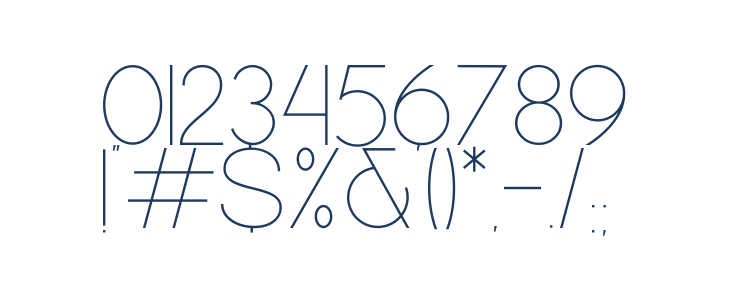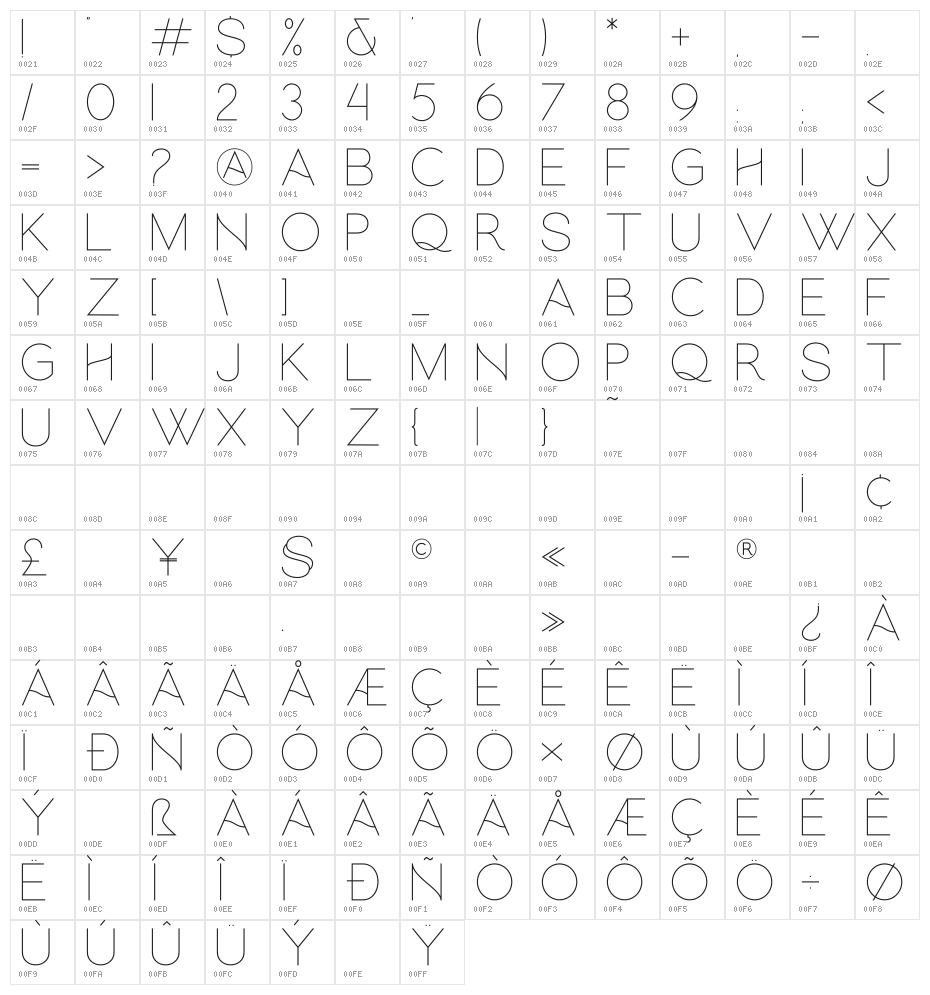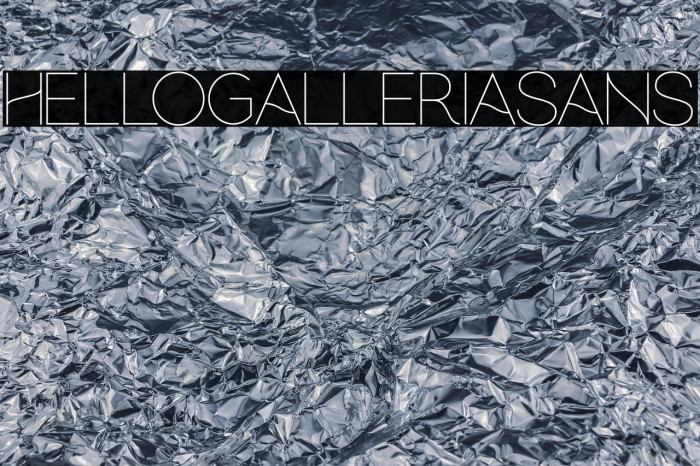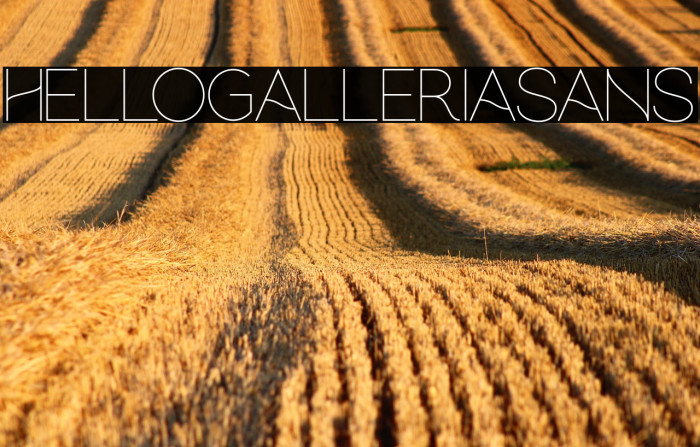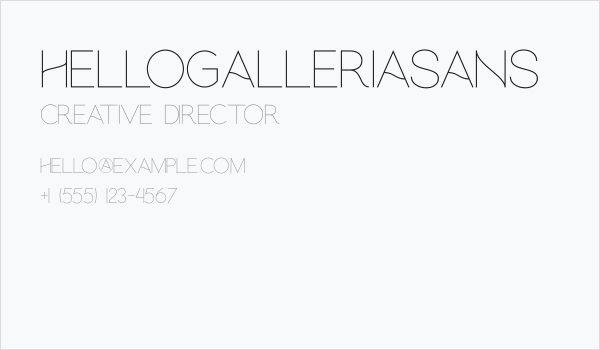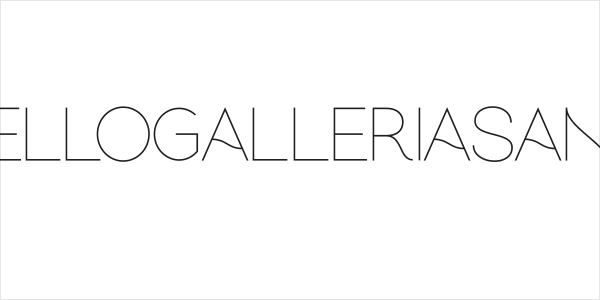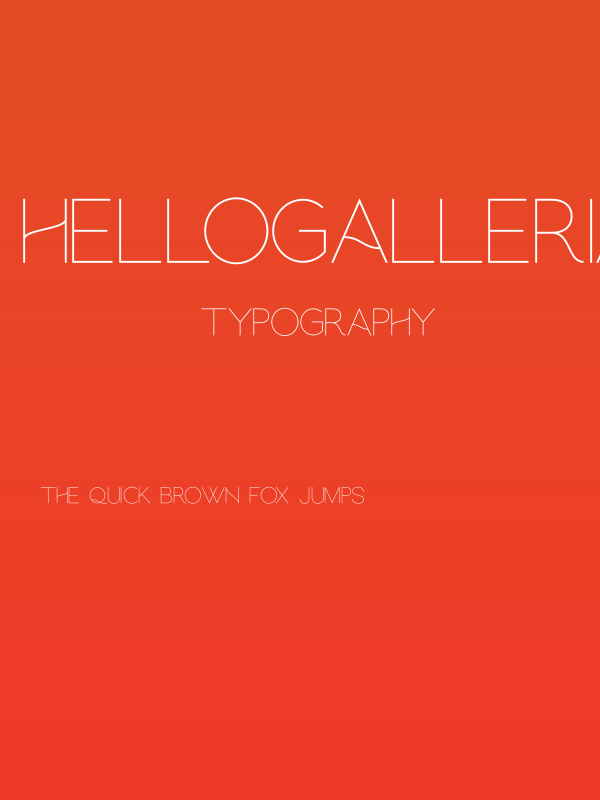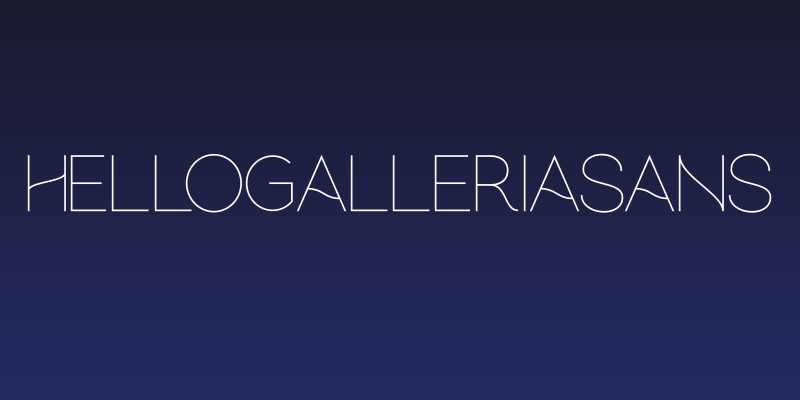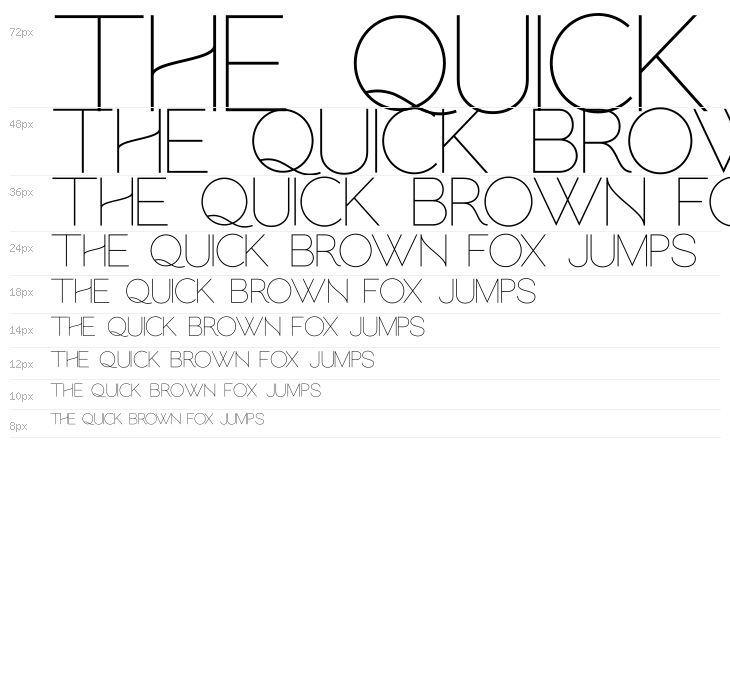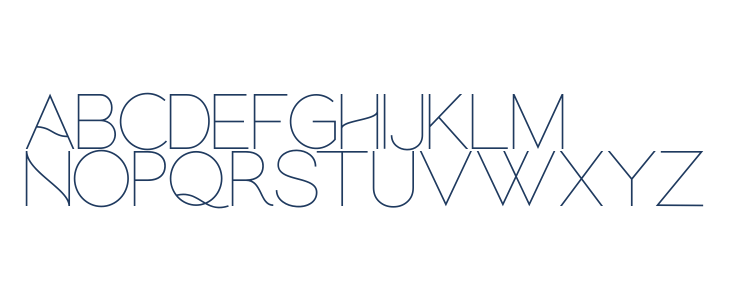
hellogalleriasans Font
hellogalleriasans Description
This font features a sleek and modern design with clean, geometric lines. The uppercase letters are tall and narrow, giving a sophisticated and elegant appearance. The lowercase letters maintain a consistent style, complementing the uppercase with their minimalist form. Numbers are clear and easy to read, following the same geometric principles. Special characters are designed with the same attention to detail, ensuring a cohesive look across all symbols. The overall aesthetic is contemporary and stylish, making it suitable for a variety of design applications.
| Use Case | Headlines, Logos, Editorial design |
| Proposed Projects | Ideal for branding, editorial design, and modern web design projects. |